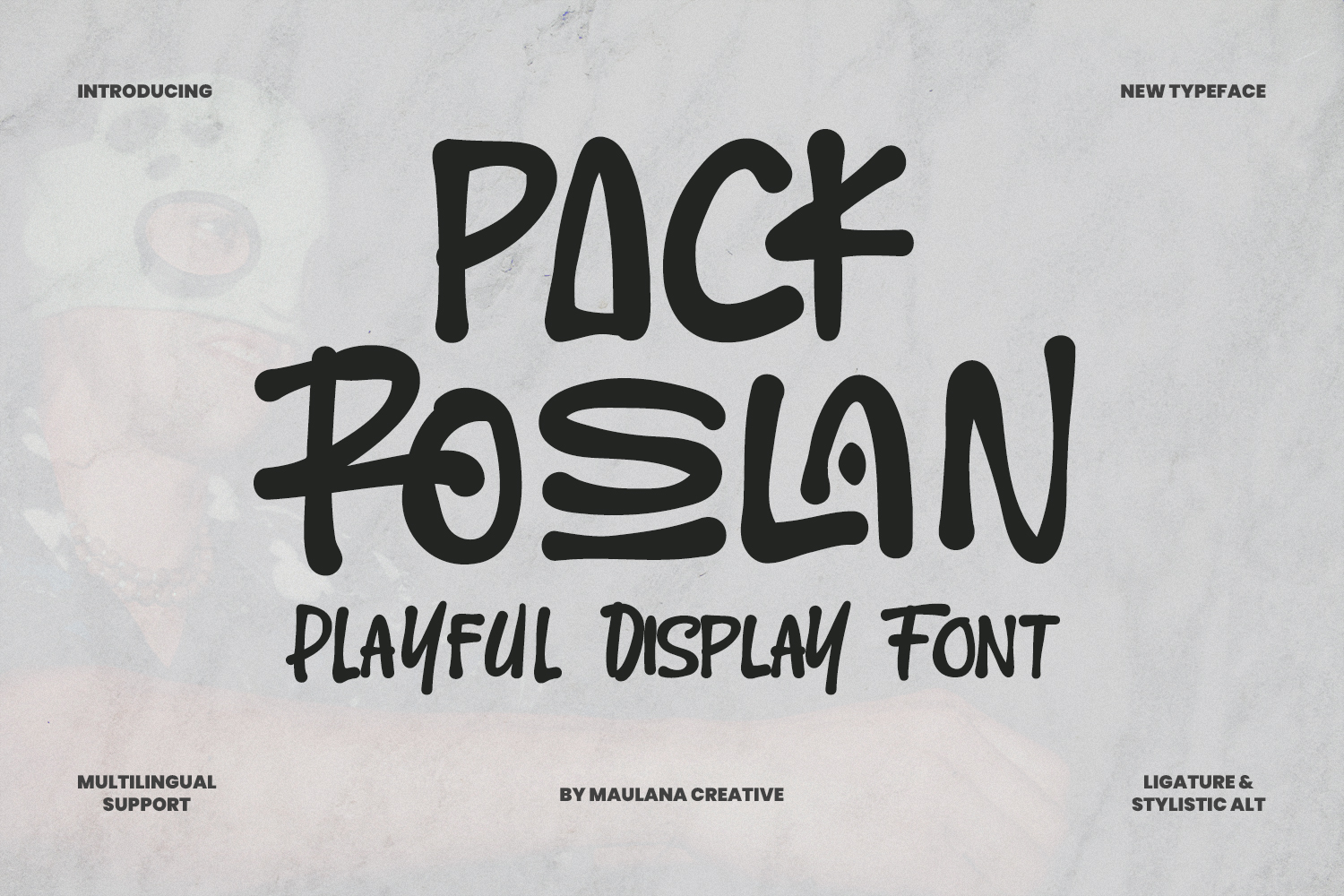
Pack Roslan Display Font
Pack Roslan
Give your designs an authentic brush handcrafted feel. "Pack Roslan Display Font" is perfectly suited to signature, stationery, logo, typography quotes, magazine or book cover, website header, flyer, clothing, branding, packaging design and more.